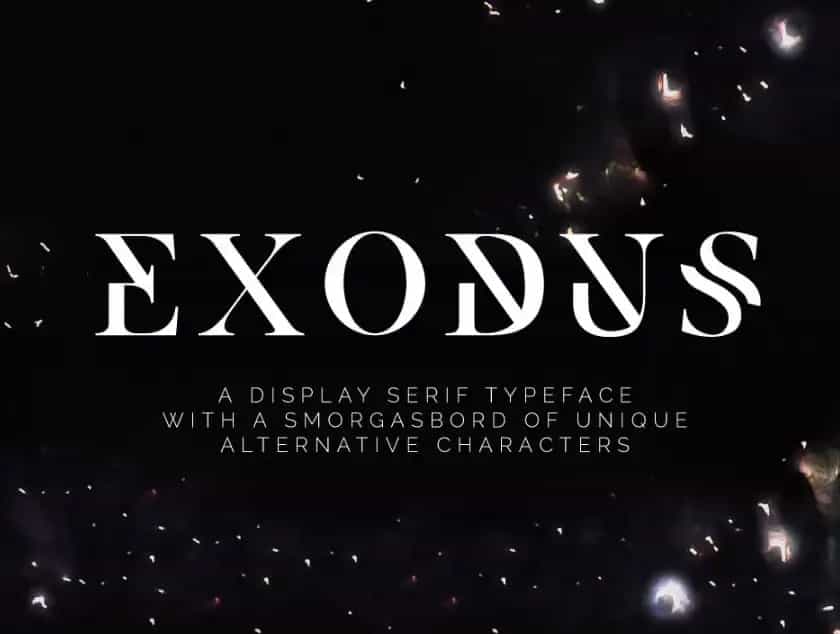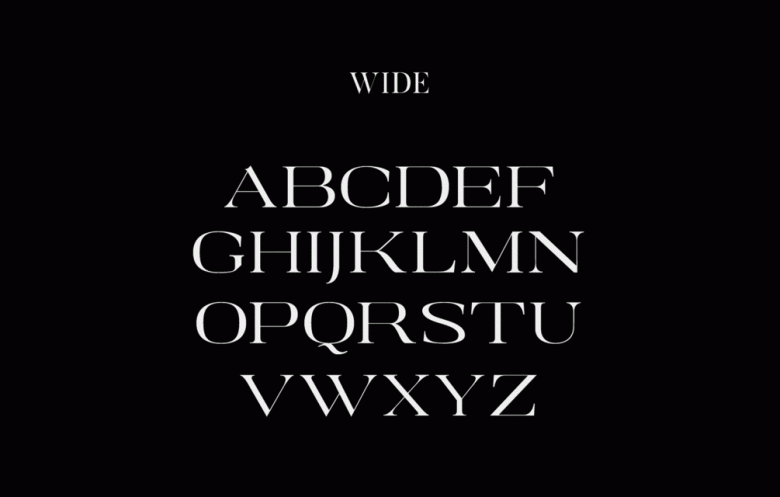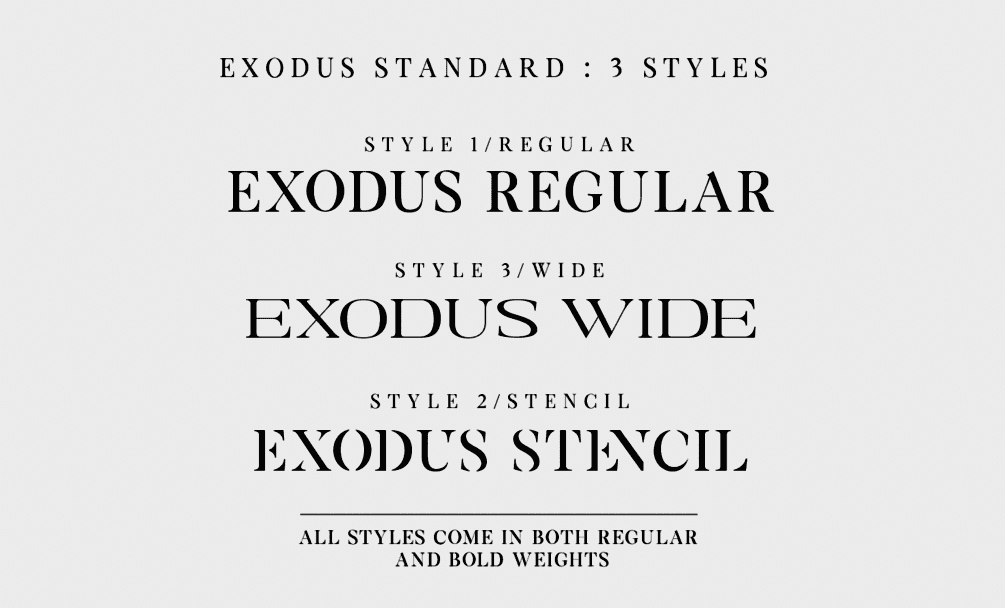
Exodus is an efficiently inspiring display serif font with the variation in the several styles of characters. Exodus Standard package consist of Exodus Regular & Bold and the Stencil Bold while the Stencil Bold Wide contain the options such as Bold Broad Variant of Exodus Standard; Exodus Display consist of the ‘Subtract Bold’, ‘Subtract Bold Shino Bold subract Bold’ and the ‘subtract Bold’ stil have the Shino Bold subract Bold options.